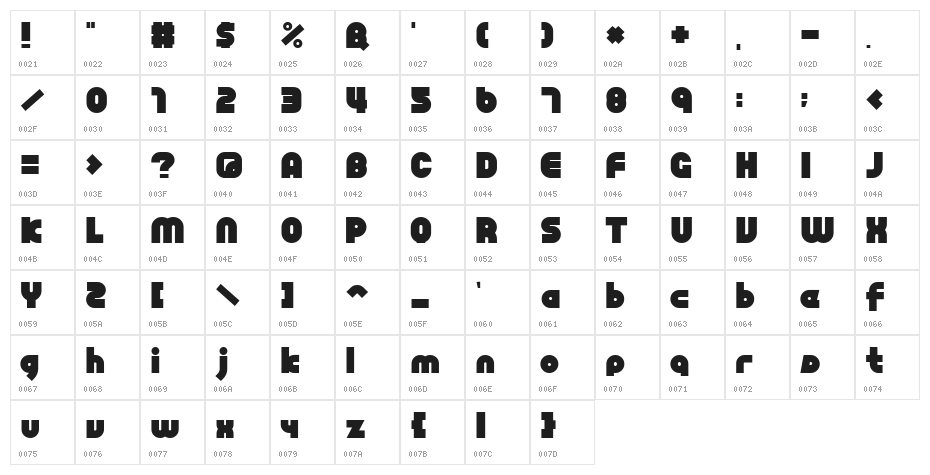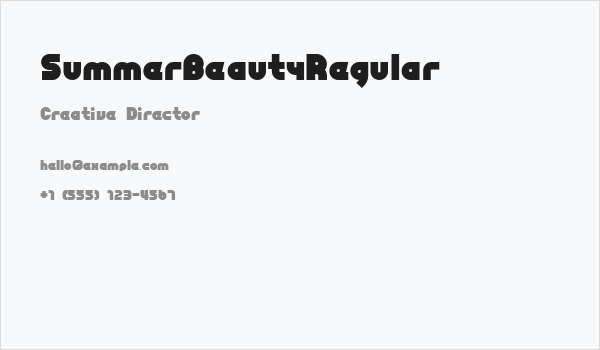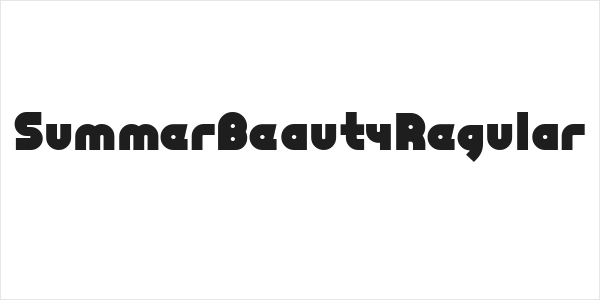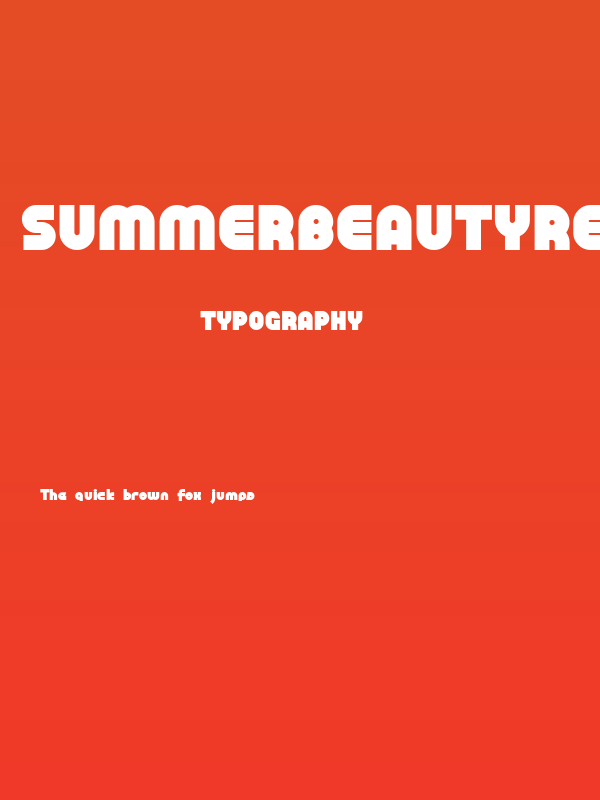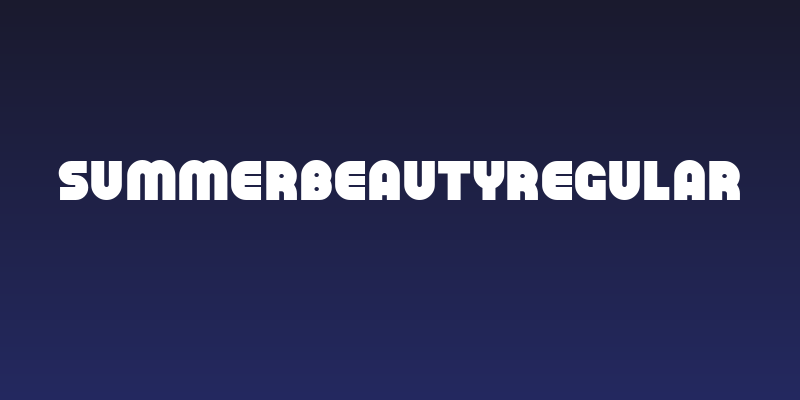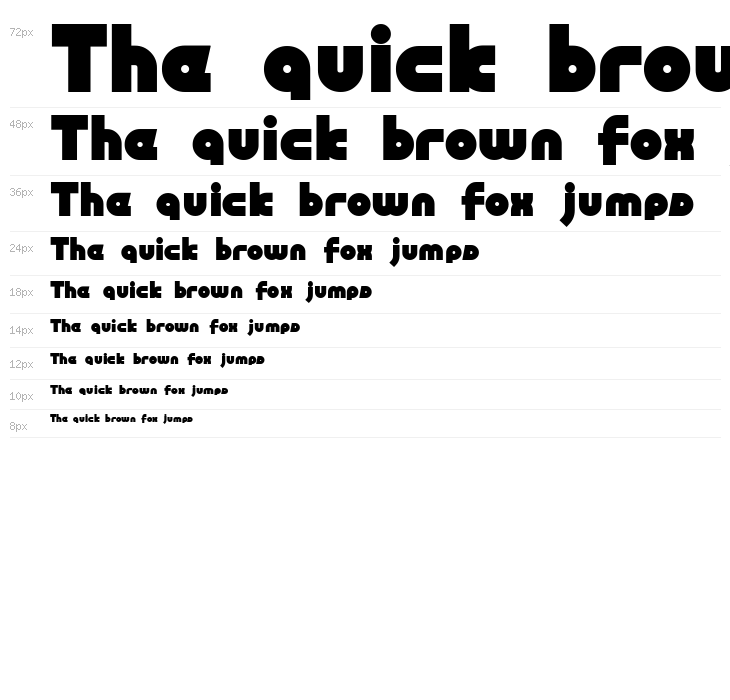
SummerBeautyRegular Font
SummerBeautyRegular Description
This font features bold, geometric letterforms with a playful and modern aesthetic. The characters are constructed with thick strokes and rounded edges, creating a sense of friendliness and approachability. The uppercase and lowercase letters maintain a consistent weight, contributing to a cohesive look. The numerals and special characters are designed to match the boldness of the alphabet, ensuring uniformity across all glyphs. This font's unique style makes it stand out, with a slight retro influence that adds to its charm.
| Proposed Projects | Ideal for branding, posters, headlines, and any design project that requires a bold and eye-catching typeface. |